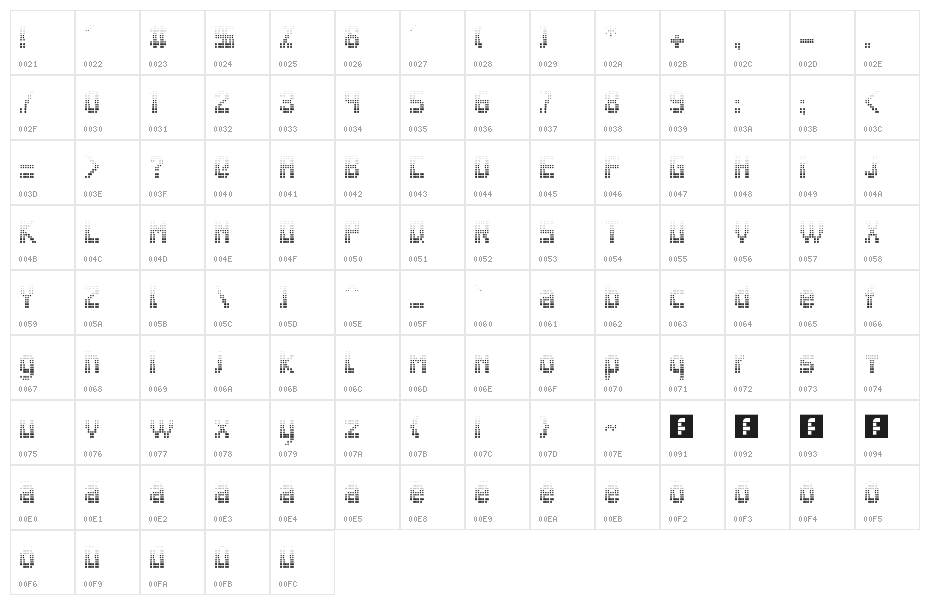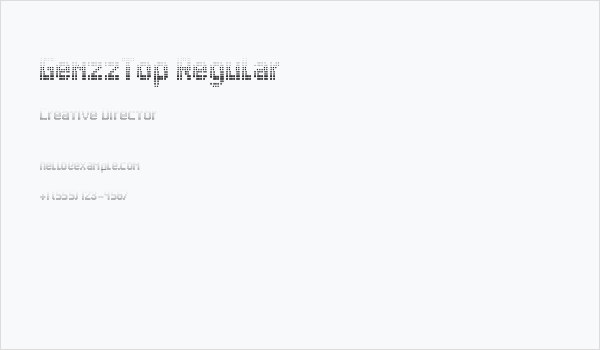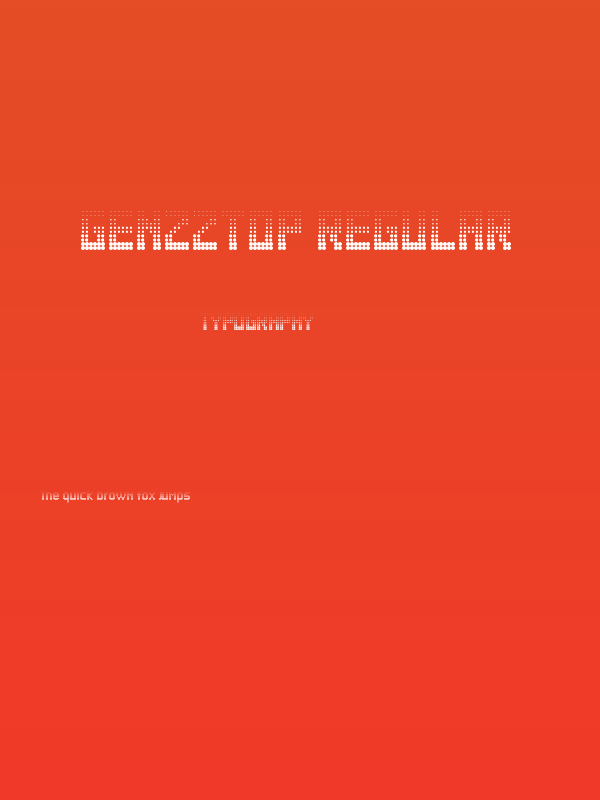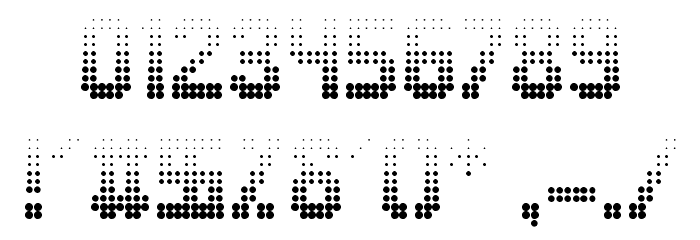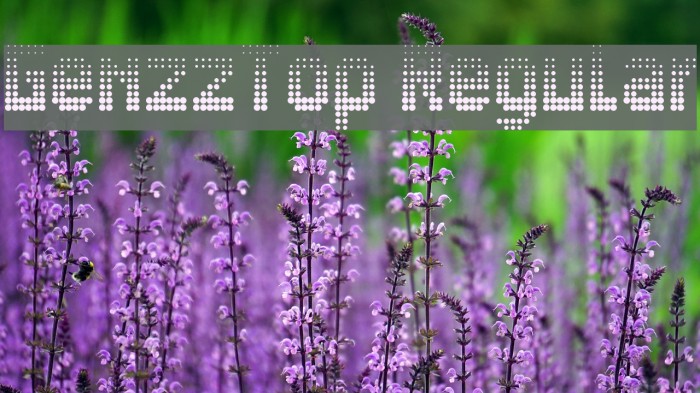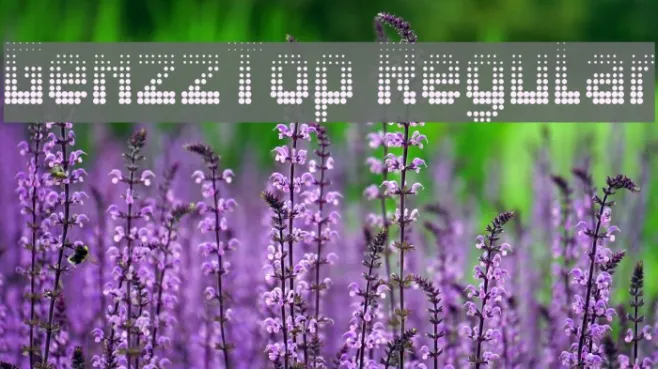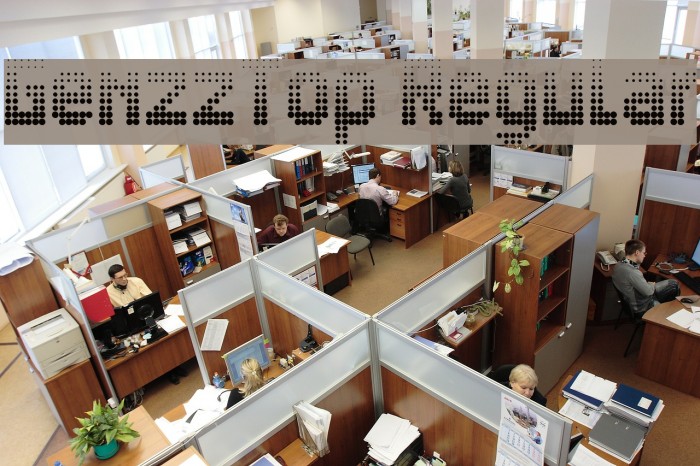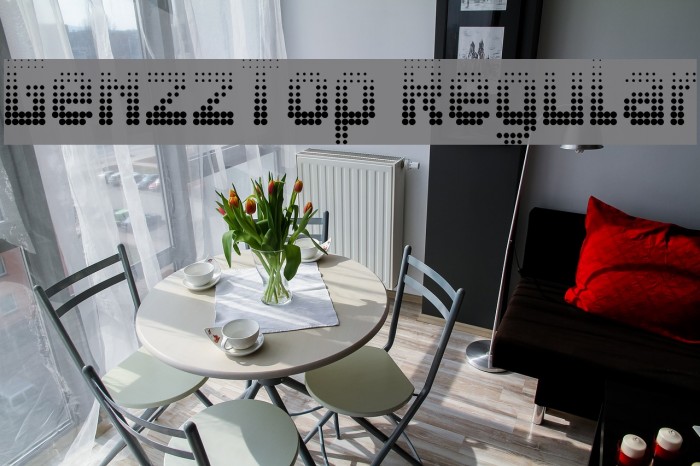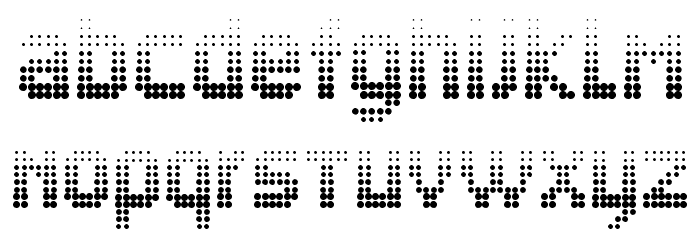
GenzzTop Regular Font
GenzzTop Regular Description
This font features a unique design composed entirely of small dots arranged to form each character. The dotted style gives it a digital, pixelated appearance reminiscent of LED displays or retro computer screens. The characters are evenly spaced, maintaining a consistent pattern throughout the alphabet, numerals, and special symbols. This design is both modern and playful, offering a distinctive look that stands out in digital and print media. The font's structure is clear and legible, making it suitable for a variety of creative applications.
| Use Case | Logos, Headlines, Digital displays |
| Proposed Projects | Ideal for digital art, tech-themed designs, retro gaming graphics, and creative advertising. |